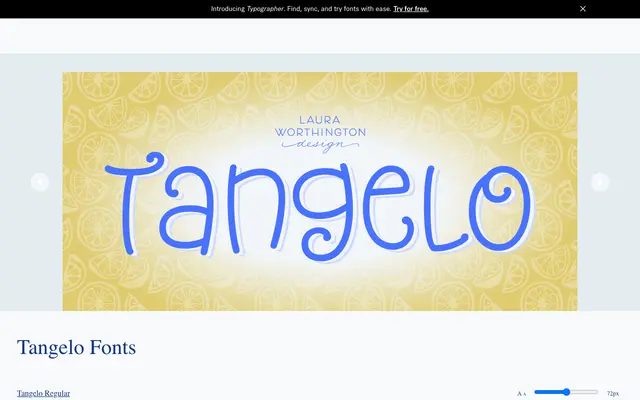
Tangelo
A casual unicase display script with 115 alternates and swash characters, aimed at packaging, games and children's products.
Tangelo blends lowercase letterforms scaled to cap height, creating a unicase character that suits playful, informal applications. The 115 alternates and swash characters give it a convincingly hand-lettered quality without manual glyph substitution, as the fonts are coded for access outside professional design software. Two weights, Regular and Bold, cover Latin Extended across 27 languages.
Described by the foundry as a casual display script with unicase characteristics, mixing lowercase letterforms scaled to cap height, placing it firmly in the casual script category.